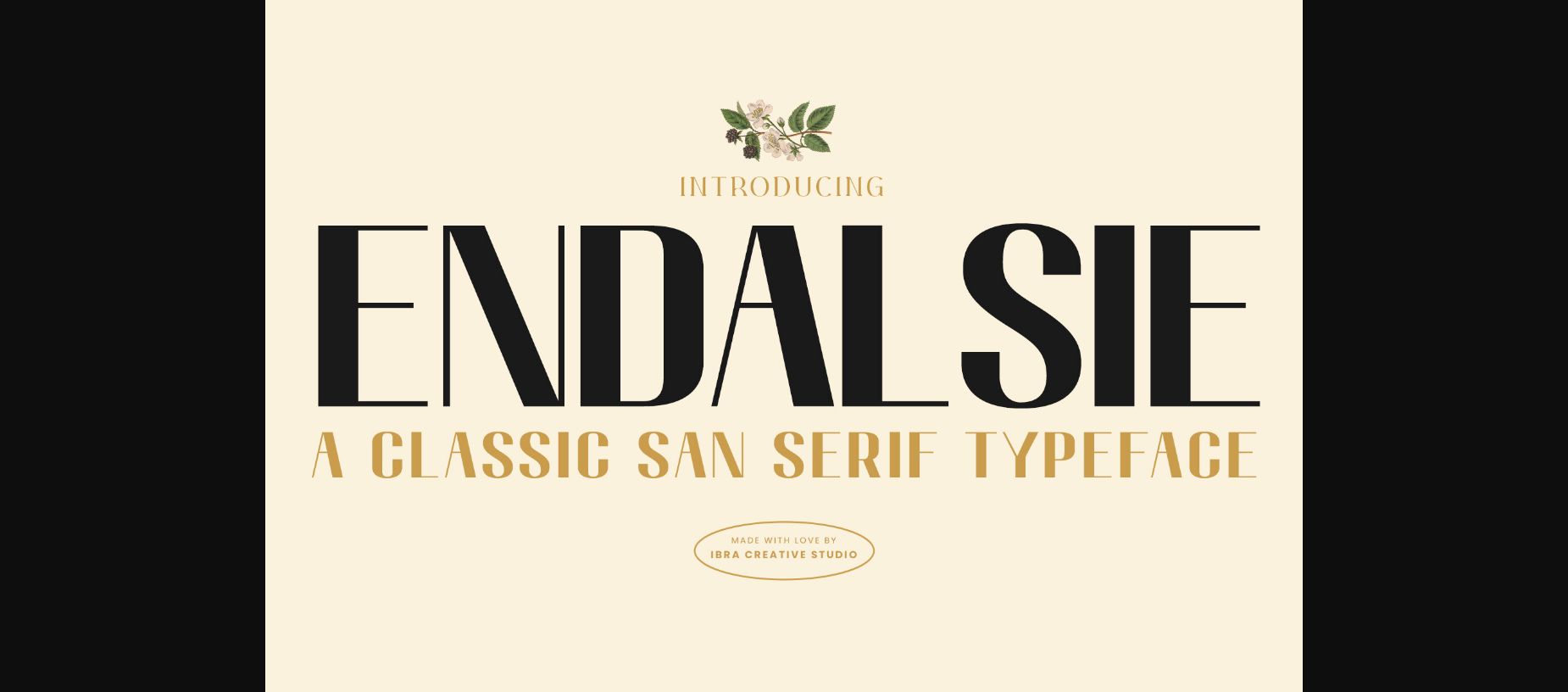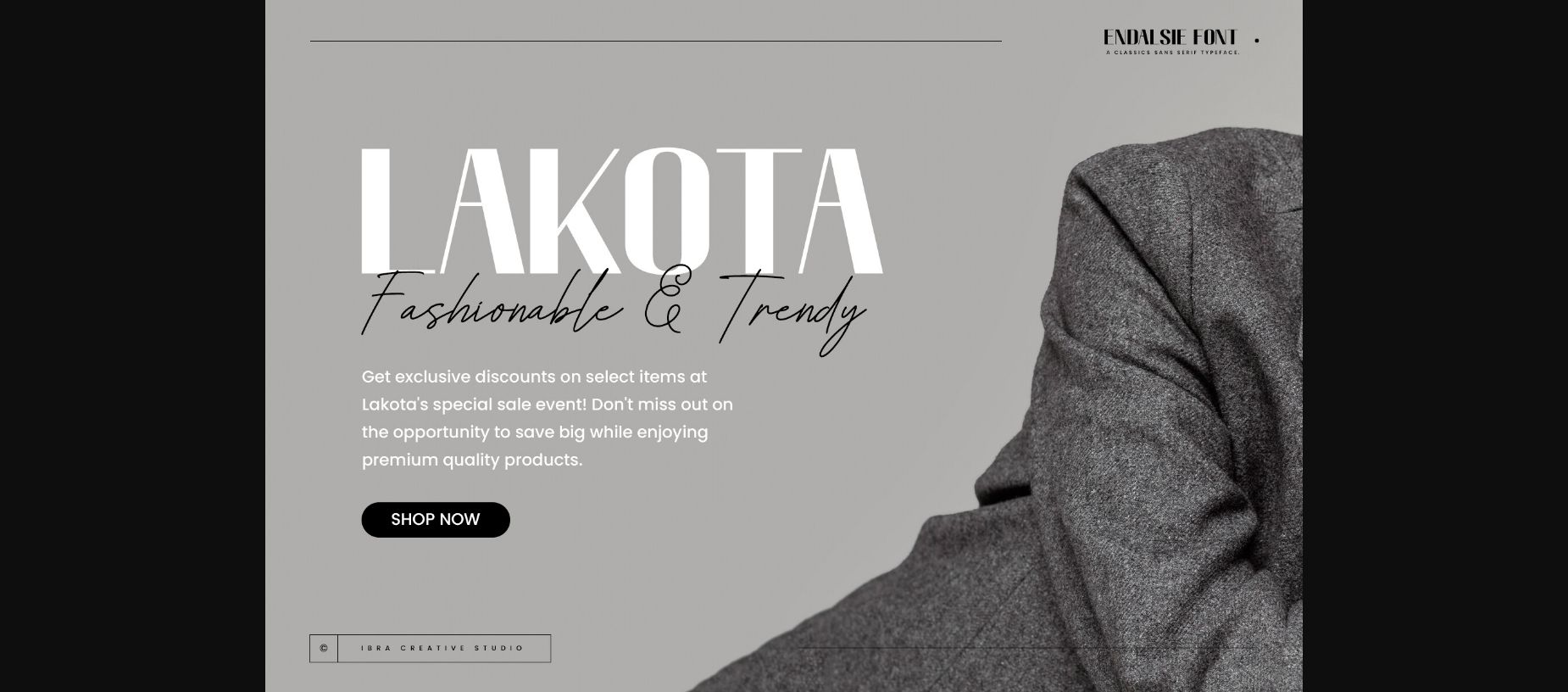
About Endalsie Font
Endalsie, a casual sans serif typeface, embodies a sense of effortless charm and modernity with its clean lines and relaxed demeanor. Each letter in Endalsie maintains a subtle balance between informality and professionalism, making it suitable for a wide range of design applications. Whether used for branding, editorial layouts, or digital displays, Endalsie adds a touch of contemporary flair while maintaining readability and accessibility.